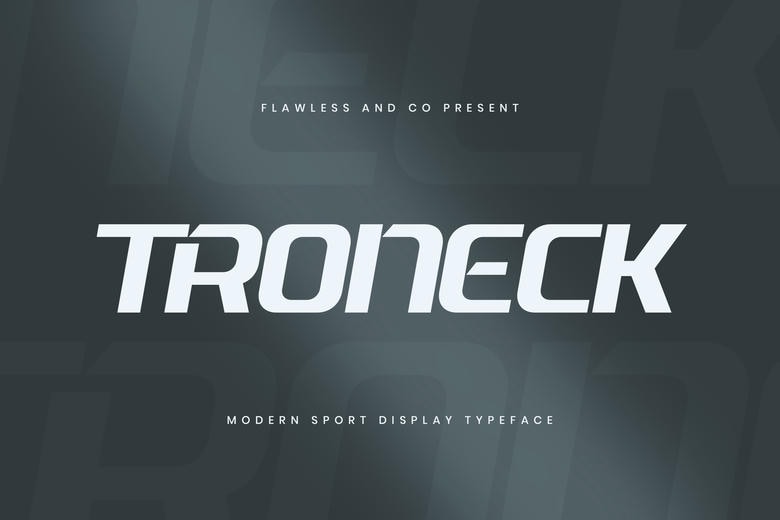
Troneck Font
Troneck – Sport Display Font is a dynamic and bold modern sport display font that is meant to add speed, energy and strength to any given design undertaking. Troneck welcomes the future of sports and athletic branding with its clean lines, sleek futuristic curves and the high self-confidence.
Ideal at creating strong statements, this typeface brings some movement and decisiveness to any place where it is applied. Troneck makes your design stand out whether it is in logos, posters or in digital media. Its versatility will enable it to be used on print and screen, so that your brand identity or the creative project make a lasting impact.
Troneck Sport Display Font